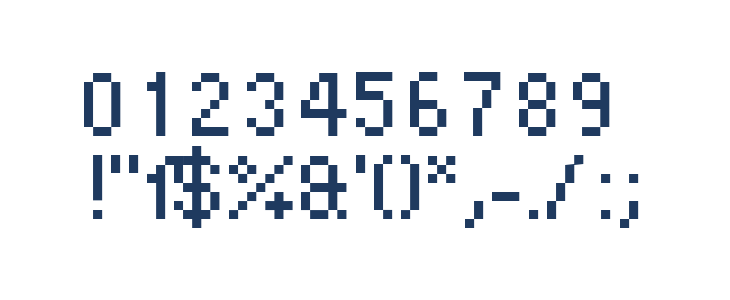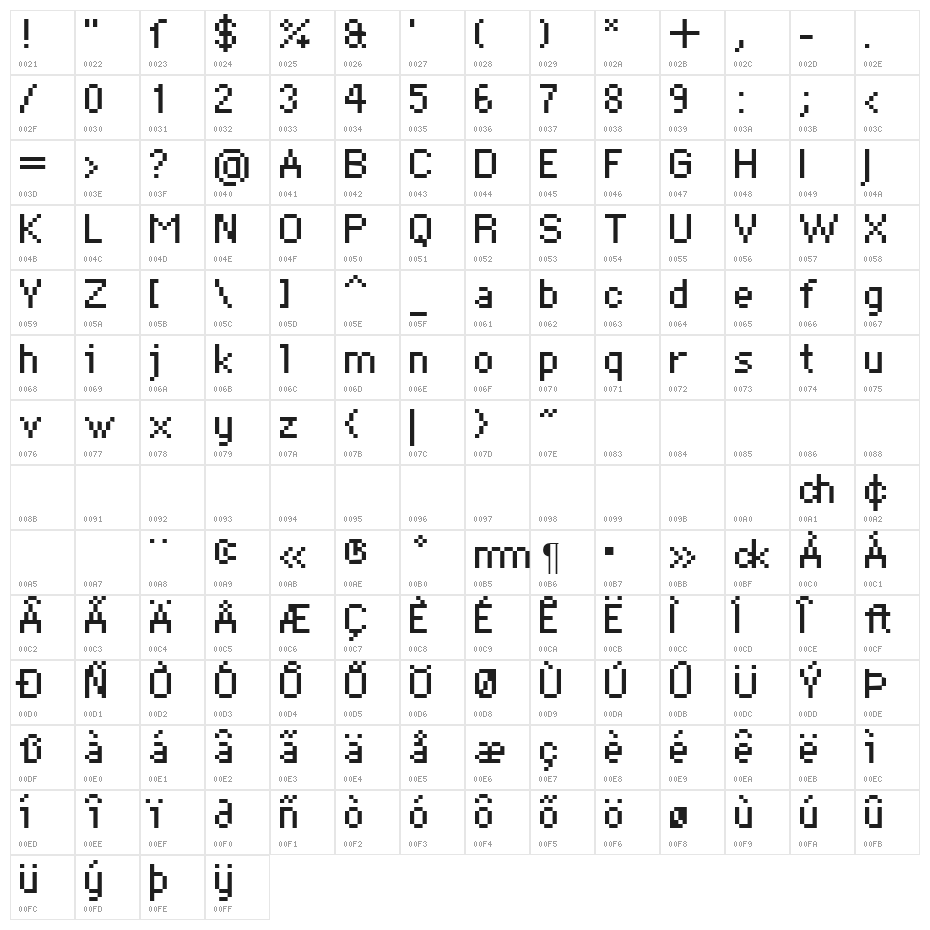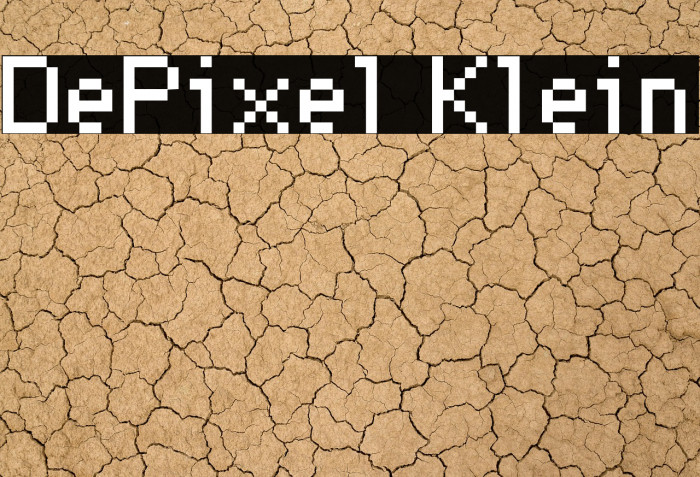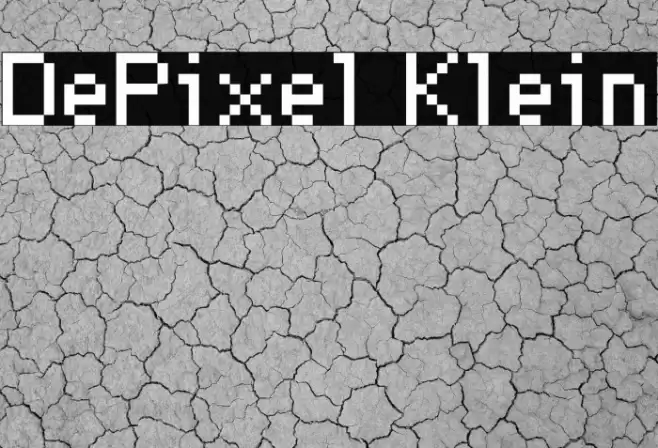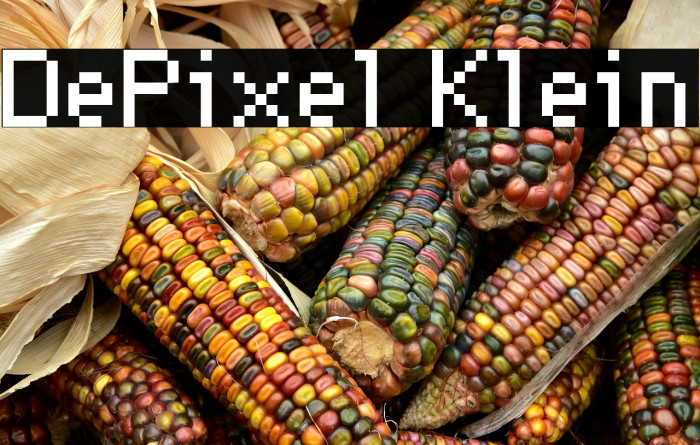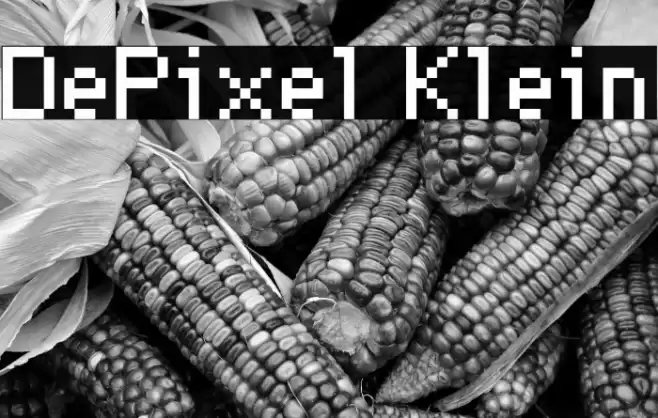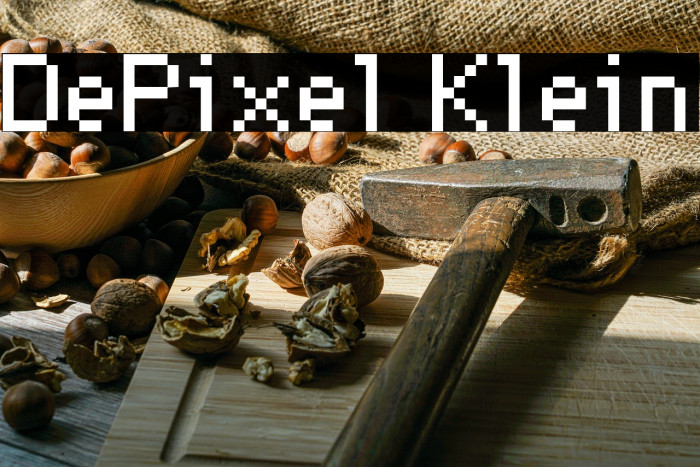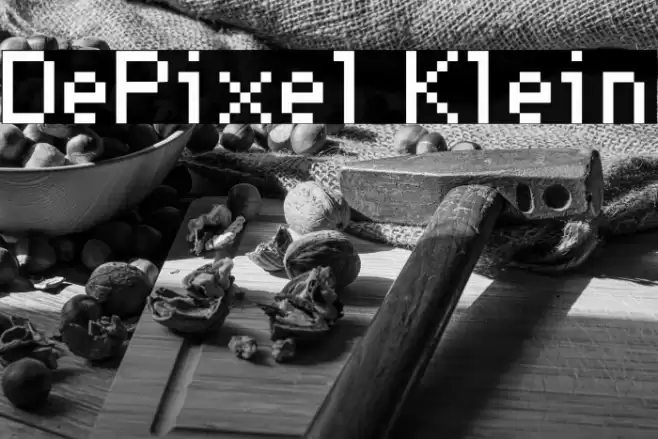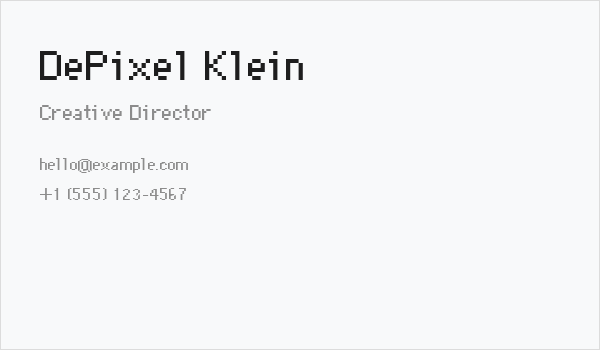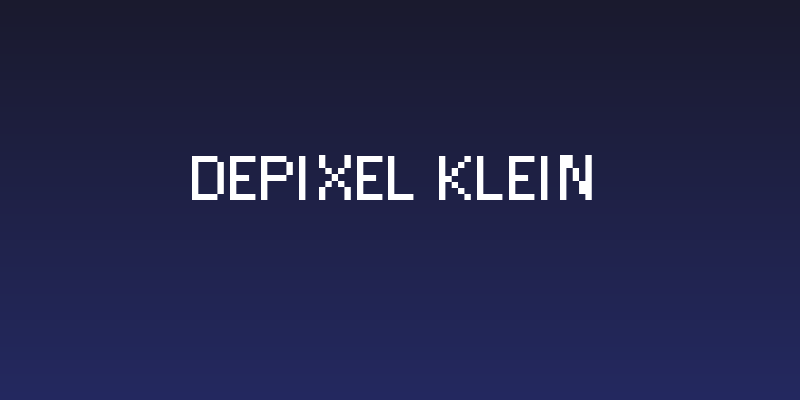
DePixel Klein Font
DePixel Klein Description
This font features a pixelated, blocky design reminiscent of early digital displays and video games. Each character is constructed with a grid-like precision, giving it a distinctly retro and digital aesthetic. The uppercase and lowercase letters maintain a uniform height, contributing to a monospaced appearance. The numerals and special characters follow the same pixelated style, ensuring consistency across all glyphs. This font's design is straightforward and geometric, making it ideal for projects that aim to evoke a sense of nostalgia or a digital theme. Its simplicity and clarity make it highly legible, even at smaller sizes.
| Use Case | Logos, Headlines, Digital displays |
| Proposed Projects | Ideal for retro video games, digital art projects, tech-themed designs, and nostalgic branding. |